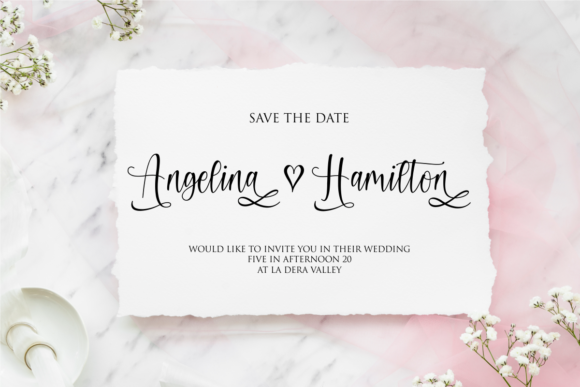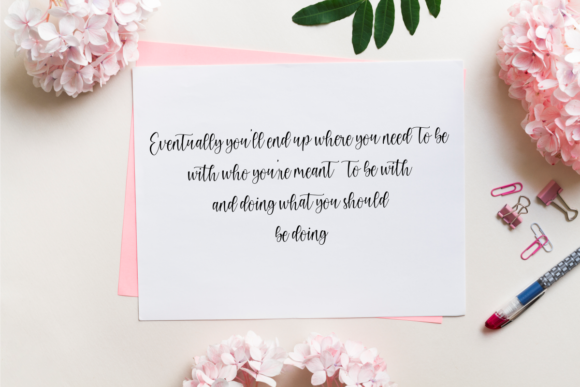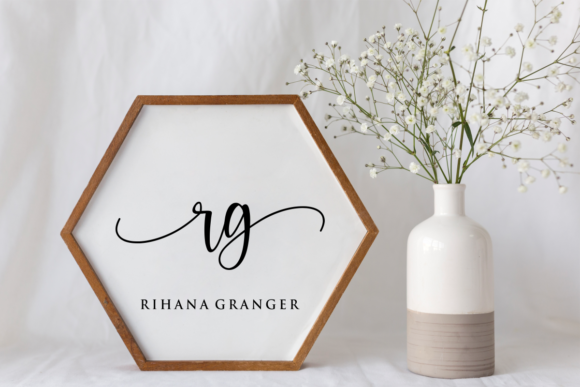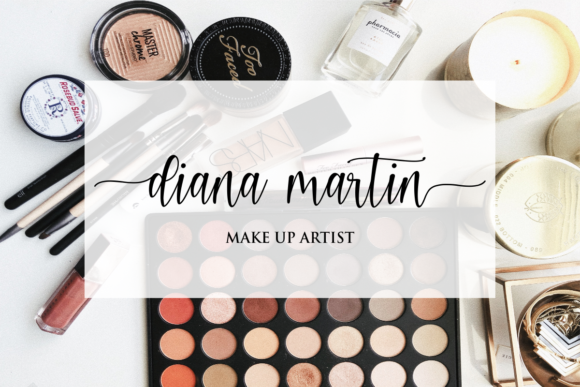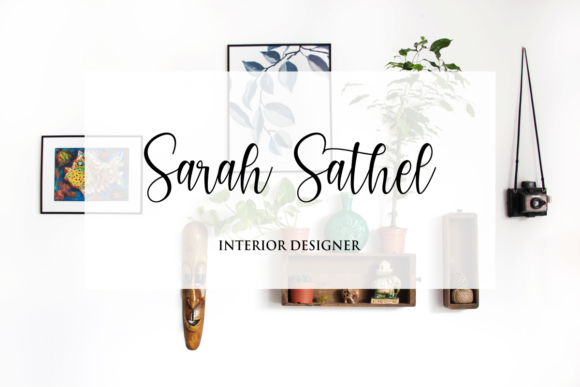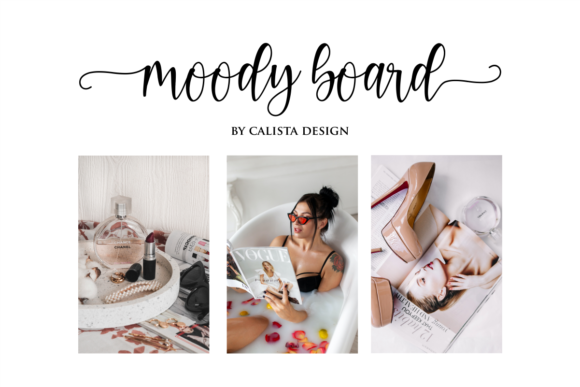
Discover the Elegance of Calista Font: A Stunning Script Font for Your Creative Projects
Are you looking for a font that exudes charm and elegance? Look no further than the Calista font. This beautiful script font is a stylish homage to classic calligraphy, making it perfect for a variety of creative projects. In this article, we’ll dive into the features and benefits of the Calista font, and explore how you can use it to elevate your designs.
The Characteristics of Calista Font
Calista font is a stunning script font that features a varying baseline, smooth lines, gorgeous glyphs, and stunning alternates. These characteristics come together to create a font that feels both authentic and elegant. The varying baseline gives the font a sense of movement and fluidity, while the smooth lines and gorgeous glyphs add to its overall beauty.
One of the standout features of Calista font is its authentic feel. This font is designed to evoke the classic calligraphy of the past, and it does so with great success. The strokes are confident and expressive, and the letterforms are carefully crafted to create a sense of harmony and balance.
Uses for Calista Font
So, what can you use Calista font for? The possibilities are endless, but here are a few ideas to get you started:
- Wedding Invitations: Calista font is perfect for creating beautiful wedding invitations that set the tone for a elegant and sophisticated celebration.
- Stationary Art: Use Calista font to create stunning stationary art, including letterheads, business cards, and more.
- Social Media Posts: Add a touch of elegance to your social media posts with Calista font. It’s perfect for creating eye-catching graphics and quotes.
- Greeting Cards: Create cute and personalized greeting cards for special occasions, such as birthdays, anniversaries, and holidays.
Why Designers and Crafters Love Calista Font
Designers and crafters love Calista font for many reasons. Here are a few:
- Elegance: Calista font is the epitome of elegance. It’s perfect for creating designs that are sophisticated and refined.
- Versatility: Calista font can be used for a wide range of projects, from wedding invitations to social media posts.
- Authenticity: The font’s authentic feel makes it perfect for designers and crafters who want to create designs that feel classic and timeless.
- Easy to Use: Calista font is easy to use and pairs well with a variety of other fonts, making it a great addition to any design toolkit.
Tips for Using Calista Font
Here are a few tips for using Calista font in your designs:
- Use it sparingly: Calista font is a statement font, so use it sparingly to add emphasis and elegance to your designs.
- Pair it with other fonts: Experiment with pairing Calista font with other fonts to create interesting and dynamic designs.
- Play with sizes: Don’t be afraid to play with different font sizes to add visual interest to your designs.
- Experiment with colors: Calista font looks great in a variety of colors, so don’t be afraid to experiment and find the perfect hue for your design.
In conclusion, Calista font is a stunning script font that is perfect for designers and crafters who want to add a touch of elegance and sophistication to their designs. With its varying baseline, smooth lines, gorgeous glyphs, and stunning alternates, Calista font is sure to impress. Whether you’re creating wedding invitations, stationary art, social media posts, or greeting cards, Calista font is a great choice. So why not give it a try and see the difference it can make in your designs?